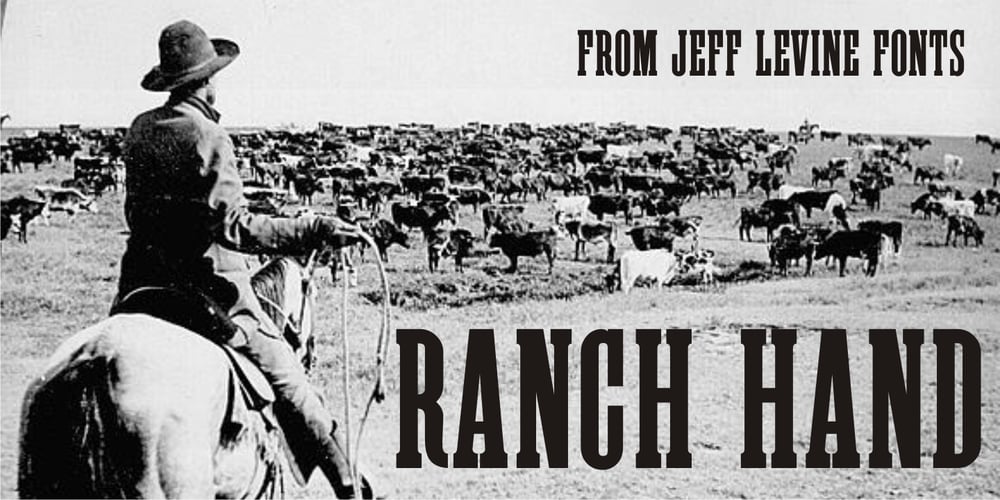
Ranch Hand JNL Font Family was designed by Jeff Levine and published by Jeff Levine. Ranch Hand JNL contains 1 styles and family package options. Ranch Hand JNL is a tall, condensed wood type with slab serifs. The font is somewhat bolder in weight than Nostrand JNL, but like its counterpart, fully captures the spirit and flavor of Nineteenth Century advertising, fliers and notices.